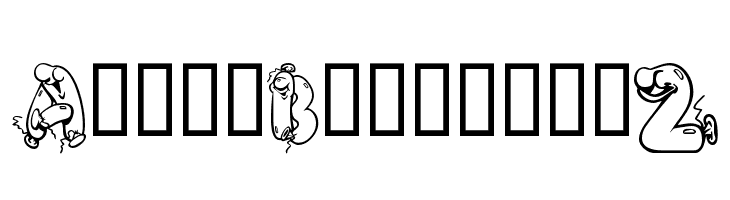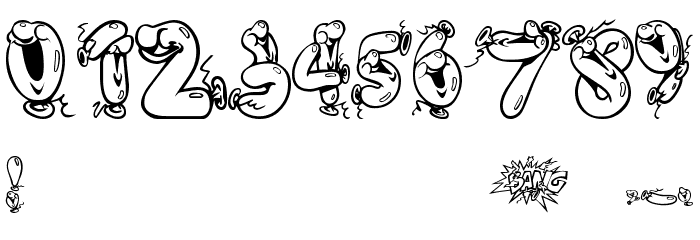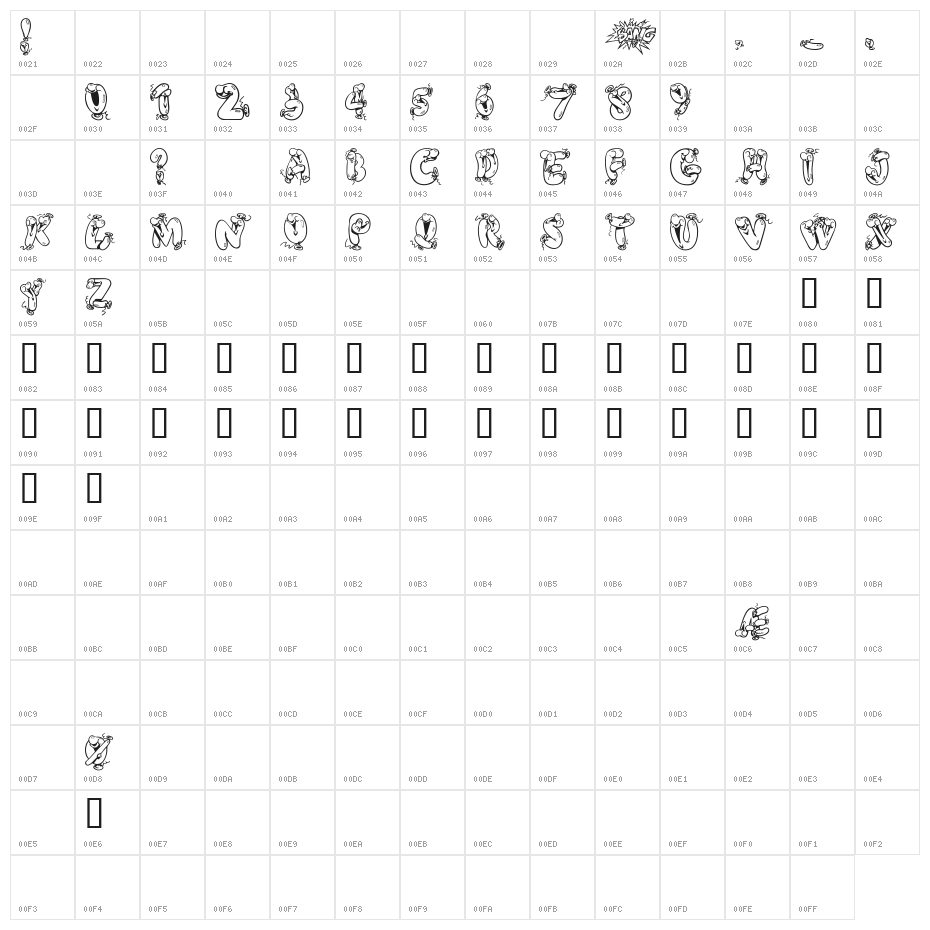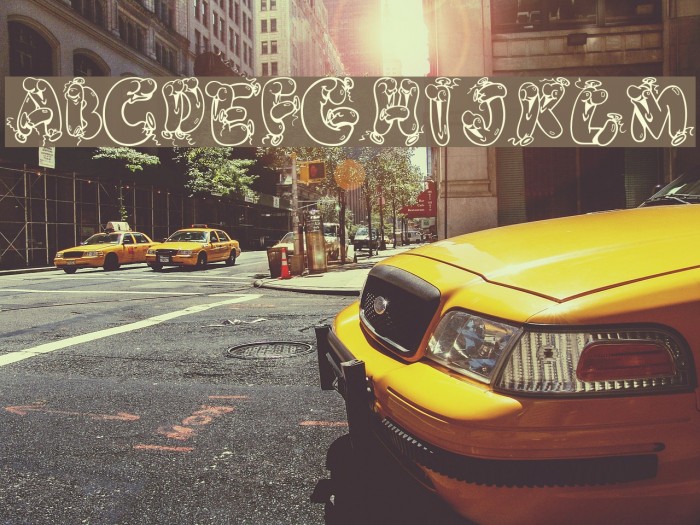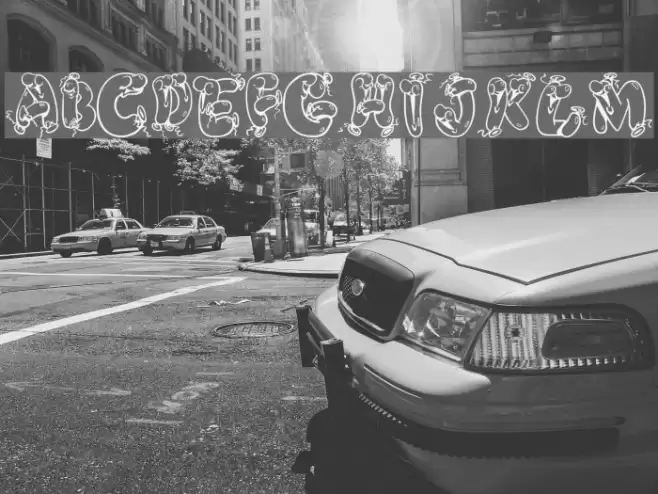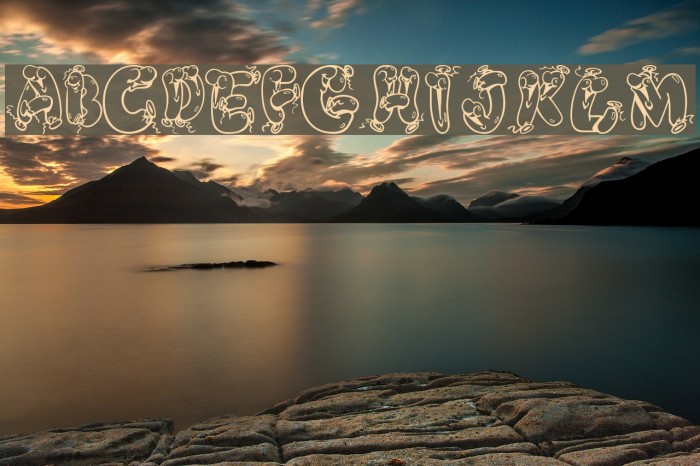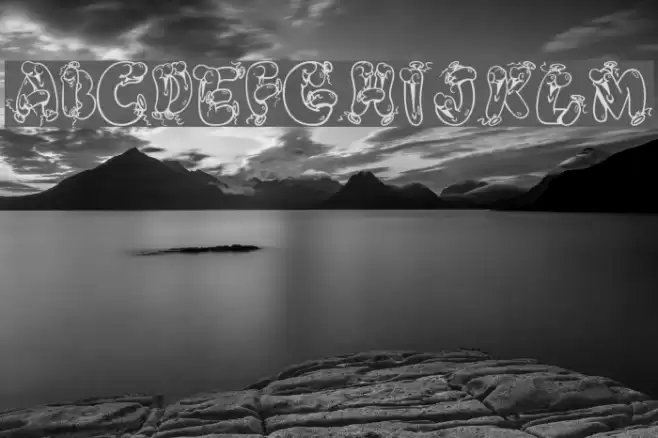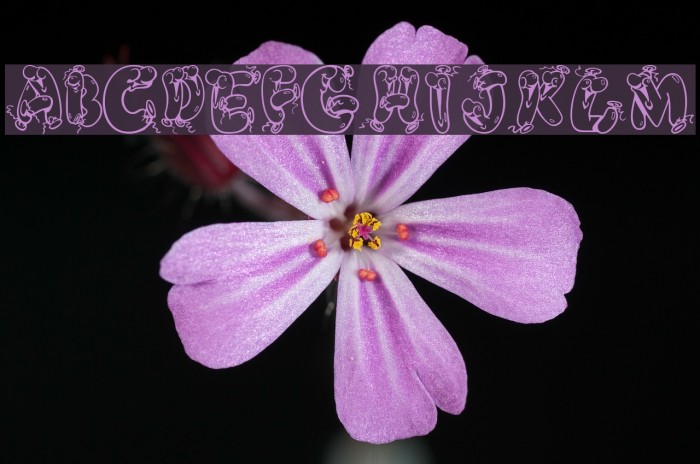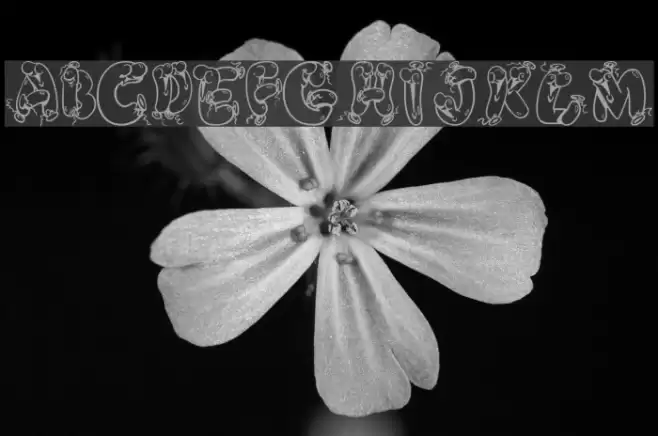
AlphaBalloons2 Font
AlphaBalloons2 Description
This playful and whimsical font features characters designed to resemble inflated balloons, complete with shiny highlights and playful expressions. Each letter and number is crafted with a sense of fun and movement, making it ideal for projects that require a lighthearted and festive touch. The characters are bold and rounded, with exaggerated curves and a sense of buoyancy. The font's unique style is further enhanced by the inclusion of small decorative elements, such as knots and strings, adding to the balloon-like appearance. This font is perfect for children's parties, playful branding, or any project that aims to evoke joy and celebration.
| Overall Style | Whimsical, Playful |
| Proposed Projects | Ideal for children's party invitations, playful branding, festive posters, and celebratory event materials. |